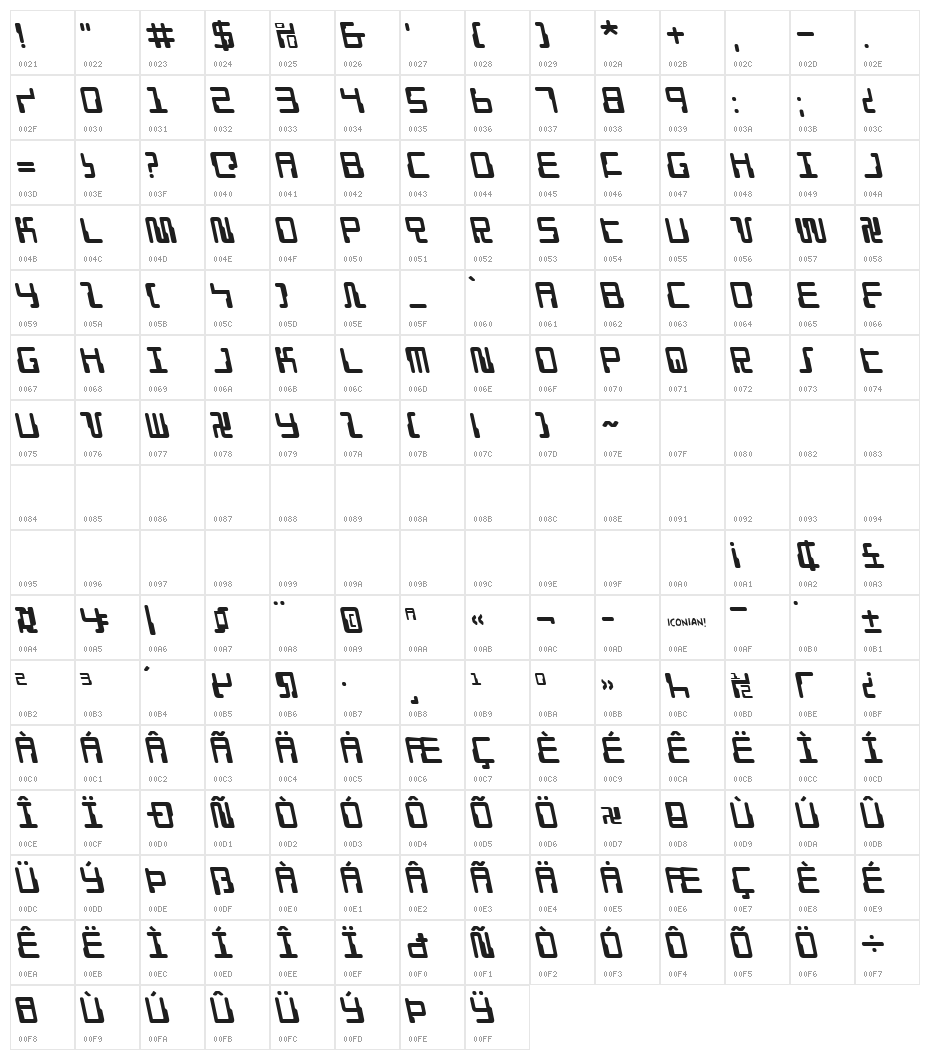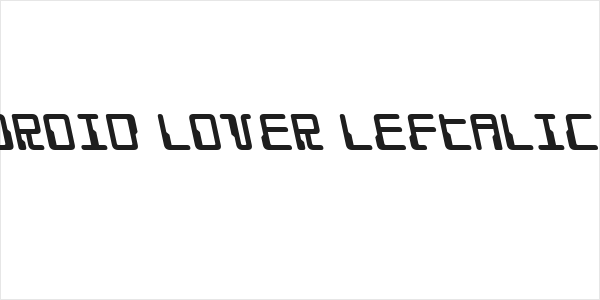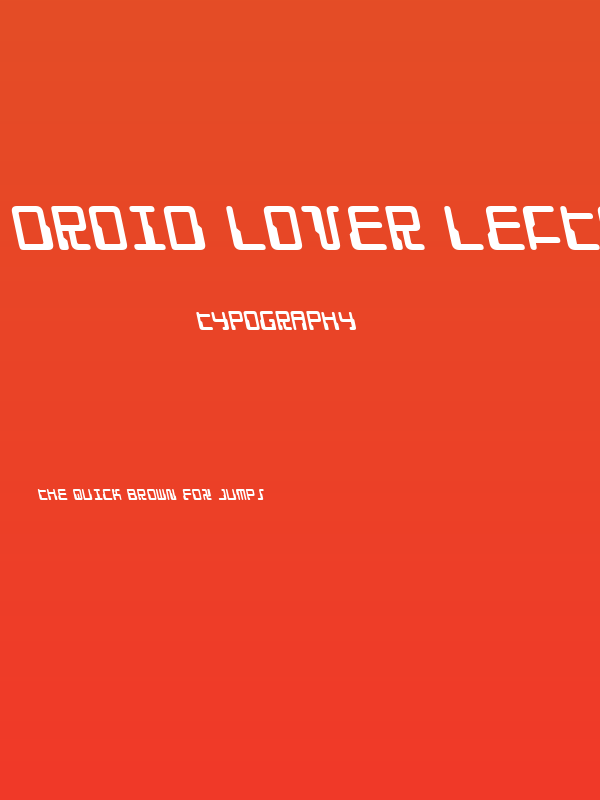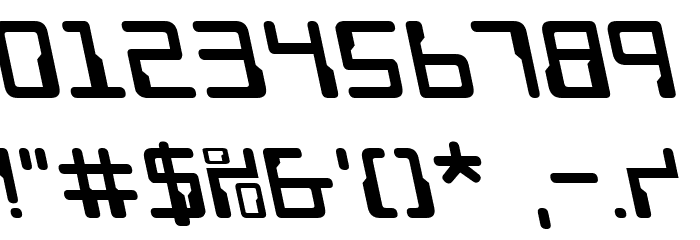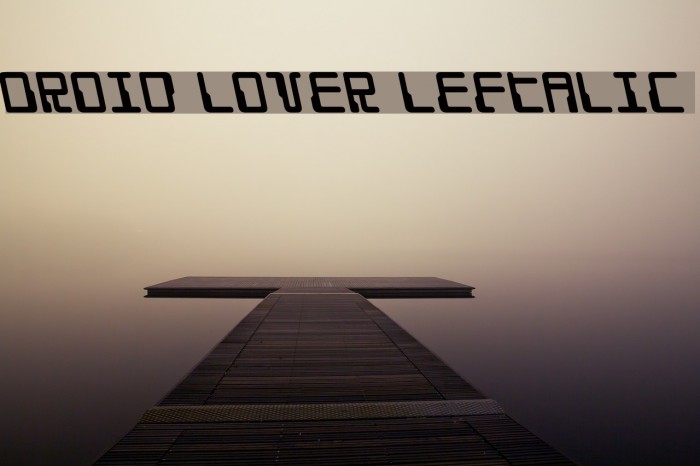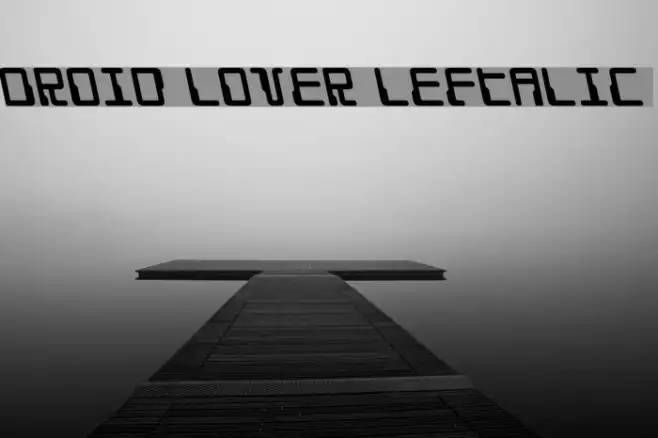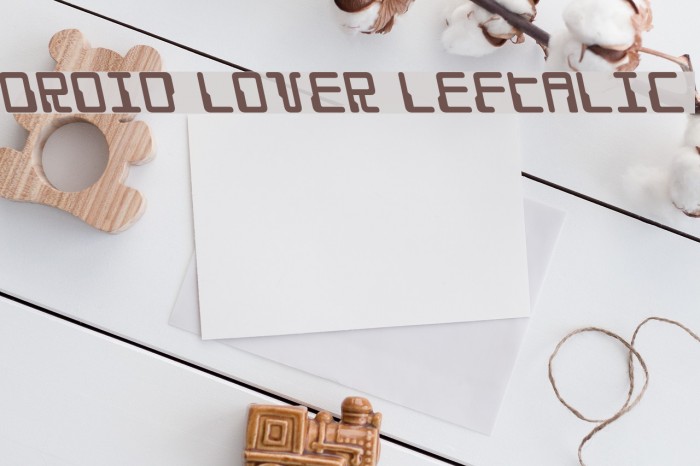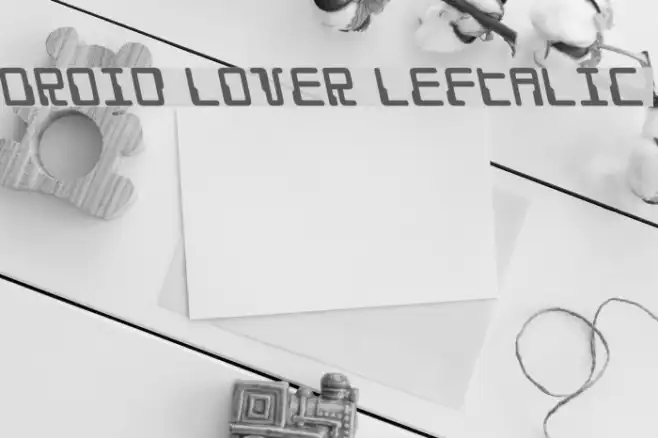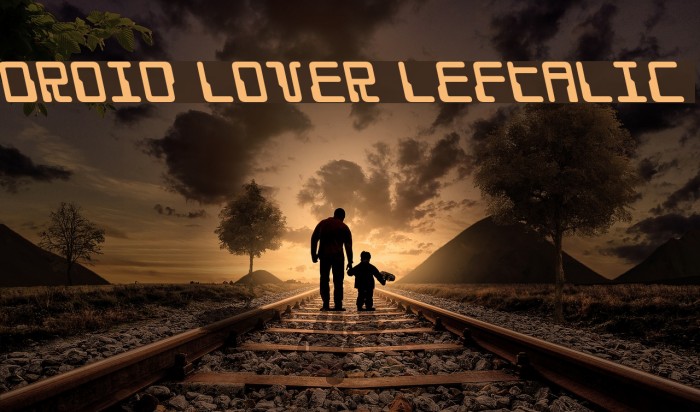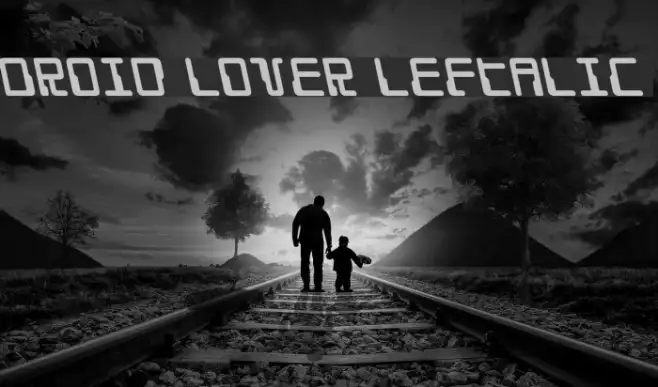
Droid Lover Leftalic Font
Droid Lover Leftalic Description
This font features a futuristic and mechanical design, characterized by its bold and angular letterforms. The characters are slightly slanted, giving a dynamic and forward-moving appearance. The strokes are thick and consistent, with rounded corners that soften the overall look. The font maintains a uniform width across all characters, contributing to its structured and orderly aesthetic. The special characters and numerals follow the same design principles, ensuring cohesion throughout the typeface. This font is ideal for projects that require a modern and tech-inspired feel.